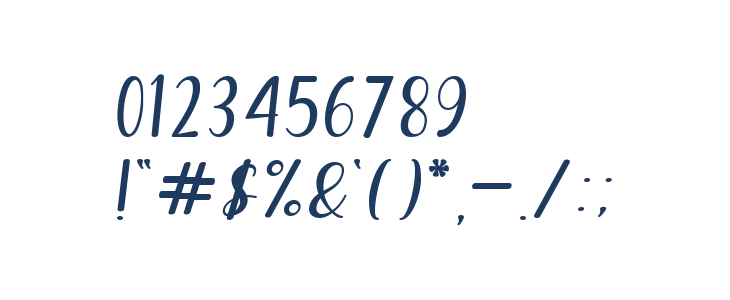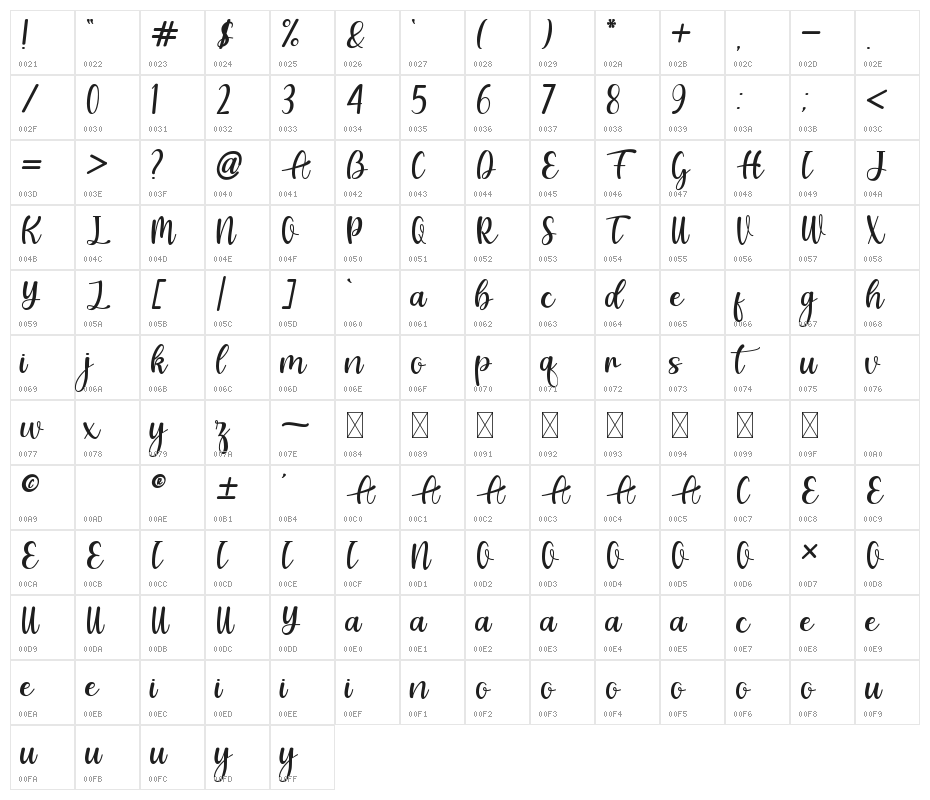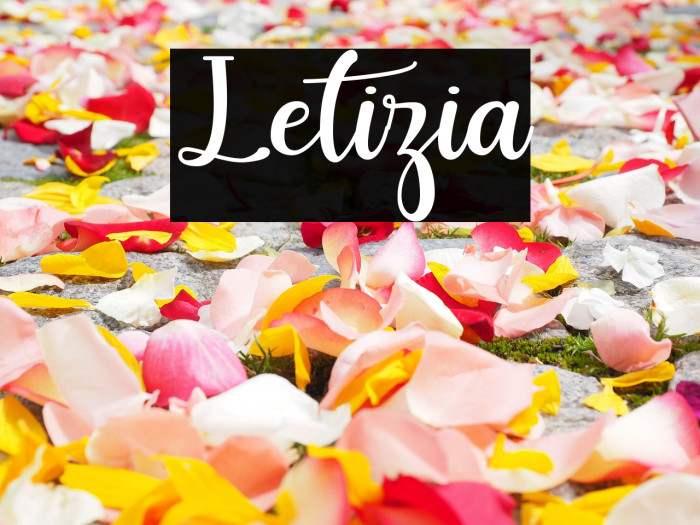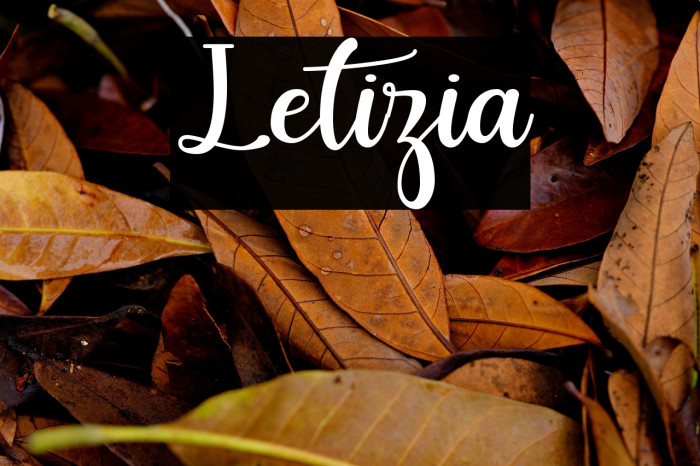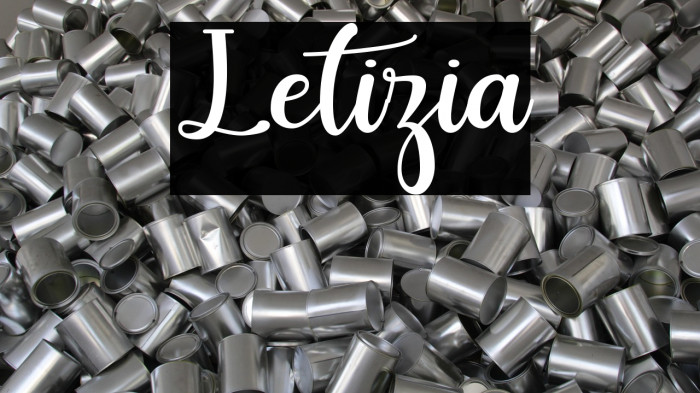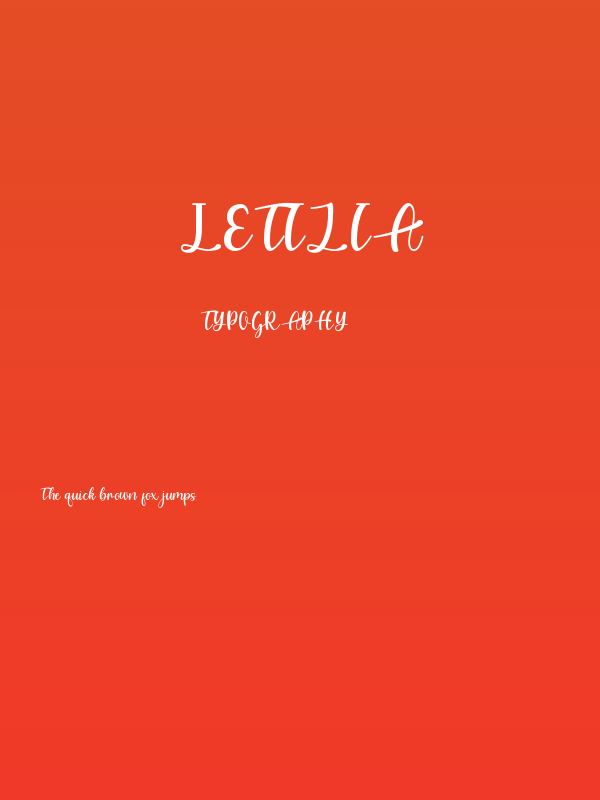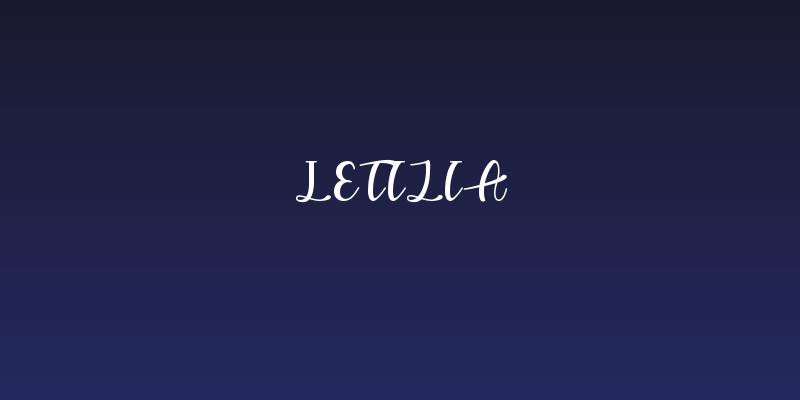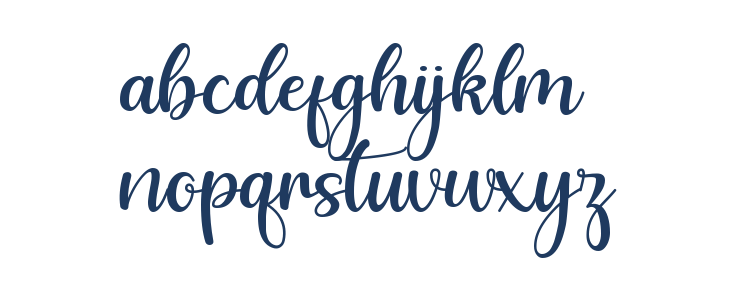
Letizia Font
Letizia Description
This font exhibits a lively and flowing script style, characterized by its elegant and cursive letterforms. The uppercase letters are tall and slightly slanted, with smooth curves and a consistent stroke width that adds a sense of rhythm and movement. The lowercase letters are equally graceful, with some characters featuring loops and swashes that enhance the font's decorative appeal. The numerals are clear and legible, maintaining the same fluid style. Special characters are well-integrated, complementing the overall aesthetic. This font is perfect for projects that require a touch of elegance and sophistication.
| Proposed Projects | Ideal for wedding invitations, greeting cards, branding, and elegant packaging designs. |